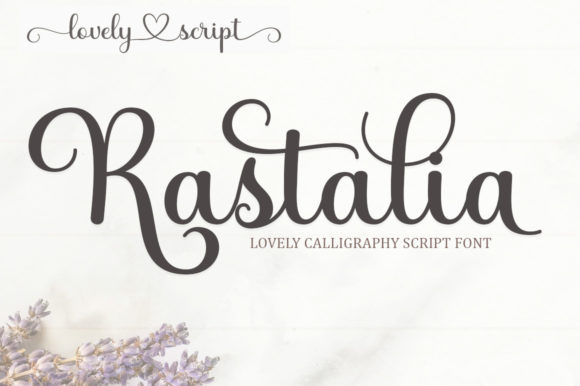
Journey into the world of enchanting calligraphy with Rastalia Font, a script font that captivates the senses and elevates your designs to new heights. This meticulously crafted font boasts intricate details and a mesmerizing flow, making it the perfect choice for adding a touch of elegance and charm to your creative projects.
Immerse yourself in the beauty of Rastalia Font, where each letter dances across the page with grace and fluidity. Its delicate curves and sweeping strokes evoke a sense of timeless sophistication, while its modern interpretation keeps it feeling fresh and relevant. Whether you're creating a heartfelt birthday card, a stunning wedding invitation, or an eye-catching social media post, Rastalia Font is your perfect companion.
With Rastalia Font, you'll discover a font that's as versatile as it is beautiful. Its wide range of characters, including uppercase and lowercase letters, numerals, and a variety of punctuation marks, ensures that you have everything you need to bring your creative vision to life. And with its PUA encoding, accessing all the glyphs and swashes is a breeze, allowing you to unleash your creativity without limits.
Step into the realm of Rastalia Font and let your imagination soar. This font is a true masterpiece, a testament to the power of typography to transform ordinary words into works of art. Its enchanting charm will cast a spell on your audience, leaving them captivated by the beauty and elegance of your designs.
Embrace the magic of Rastalia Font today and elevate your creative projects to new heights. With its captivating beauty and endless possibilities, this font is sure to become your go-to choice for adding a touch of enchantment to any project. Don't let this opportunity pass you by; download Rastalia Font now and unlock the door to a world of creative possibilities.